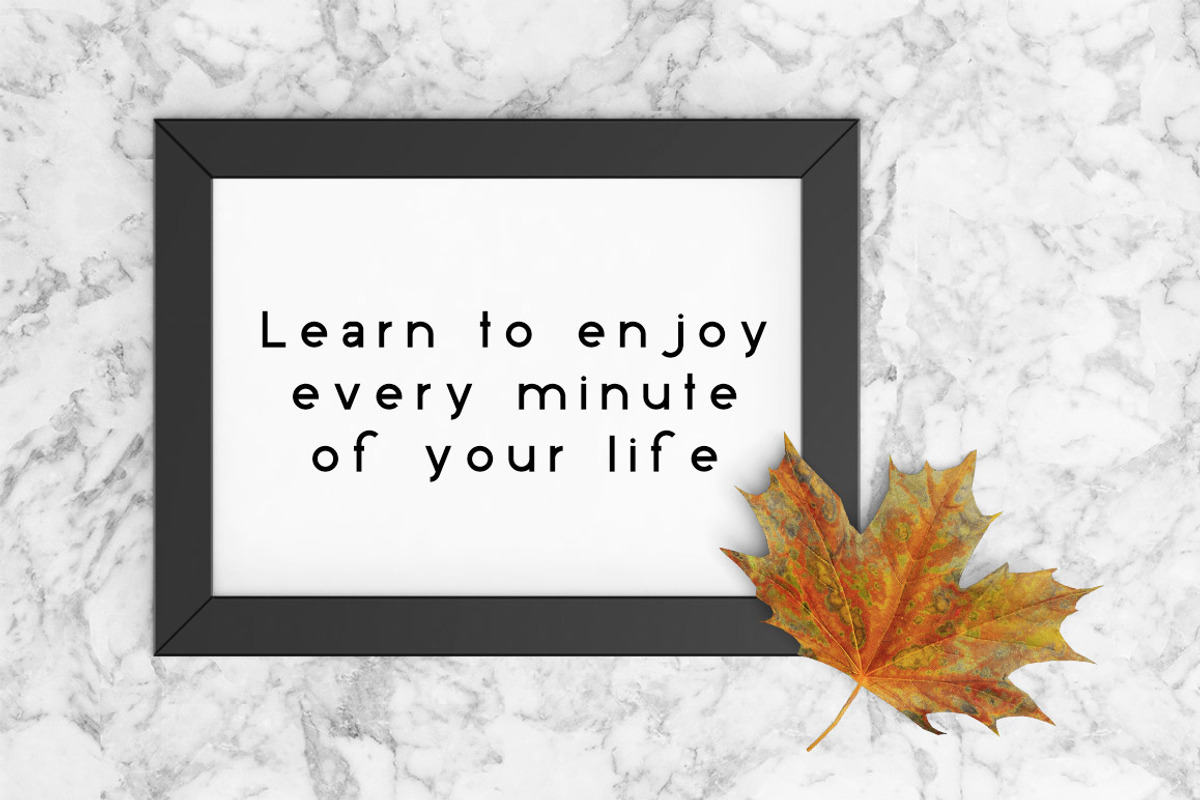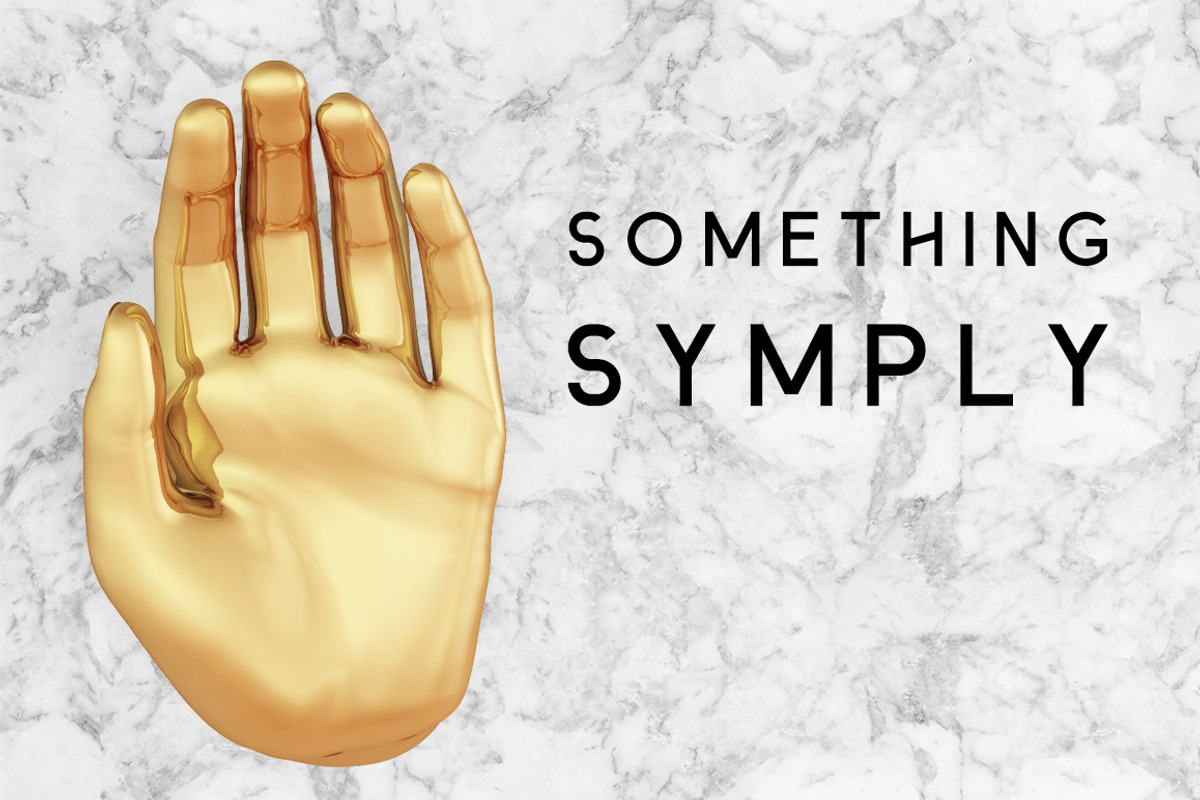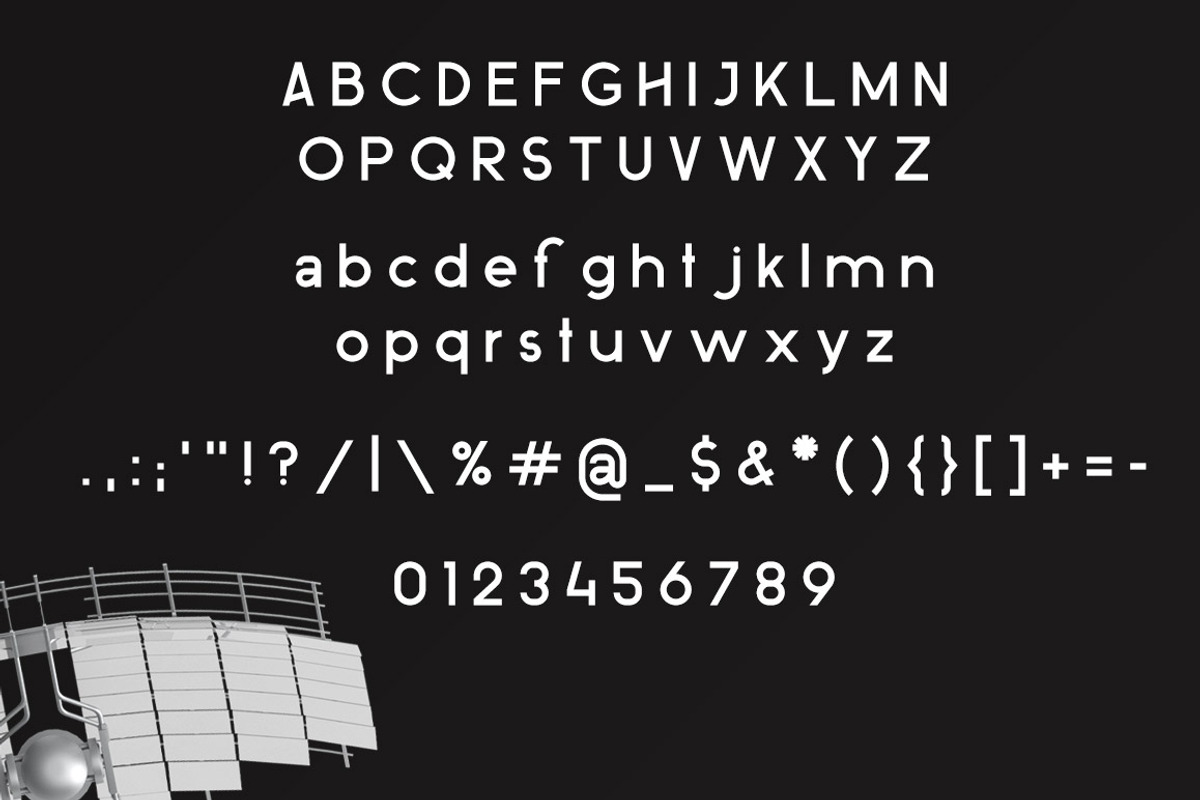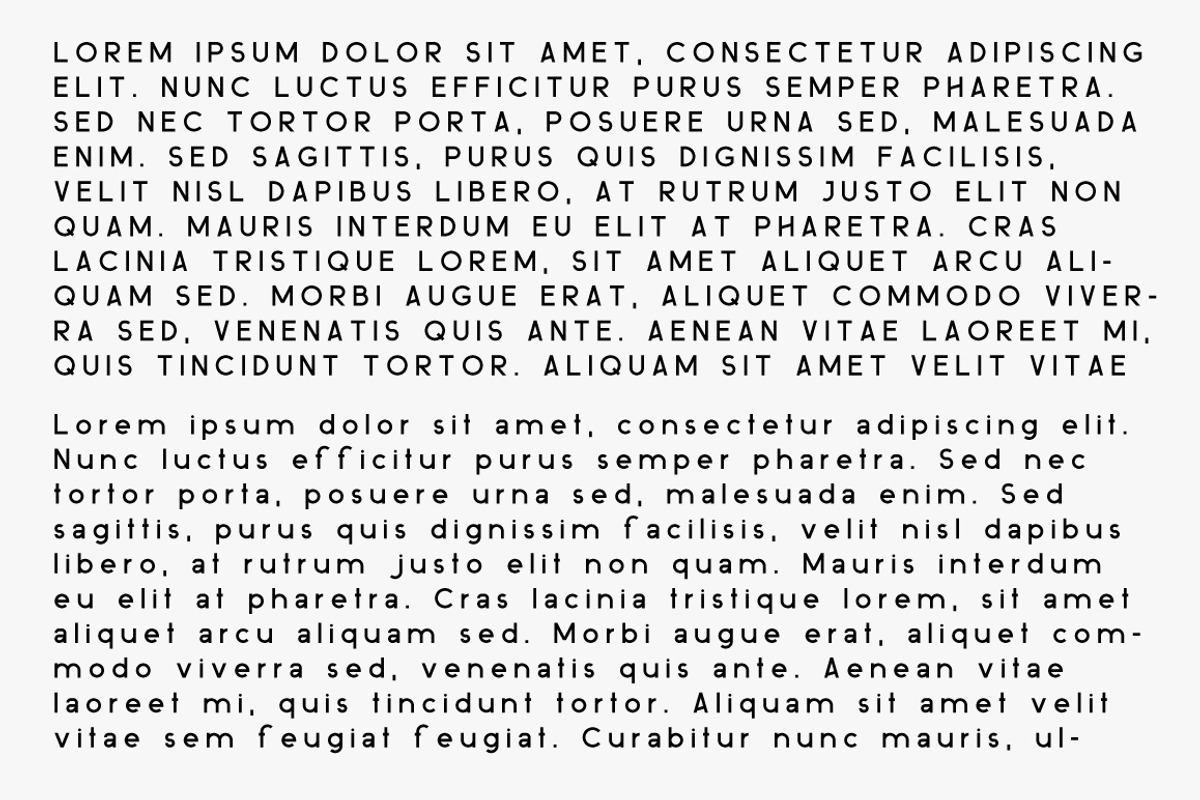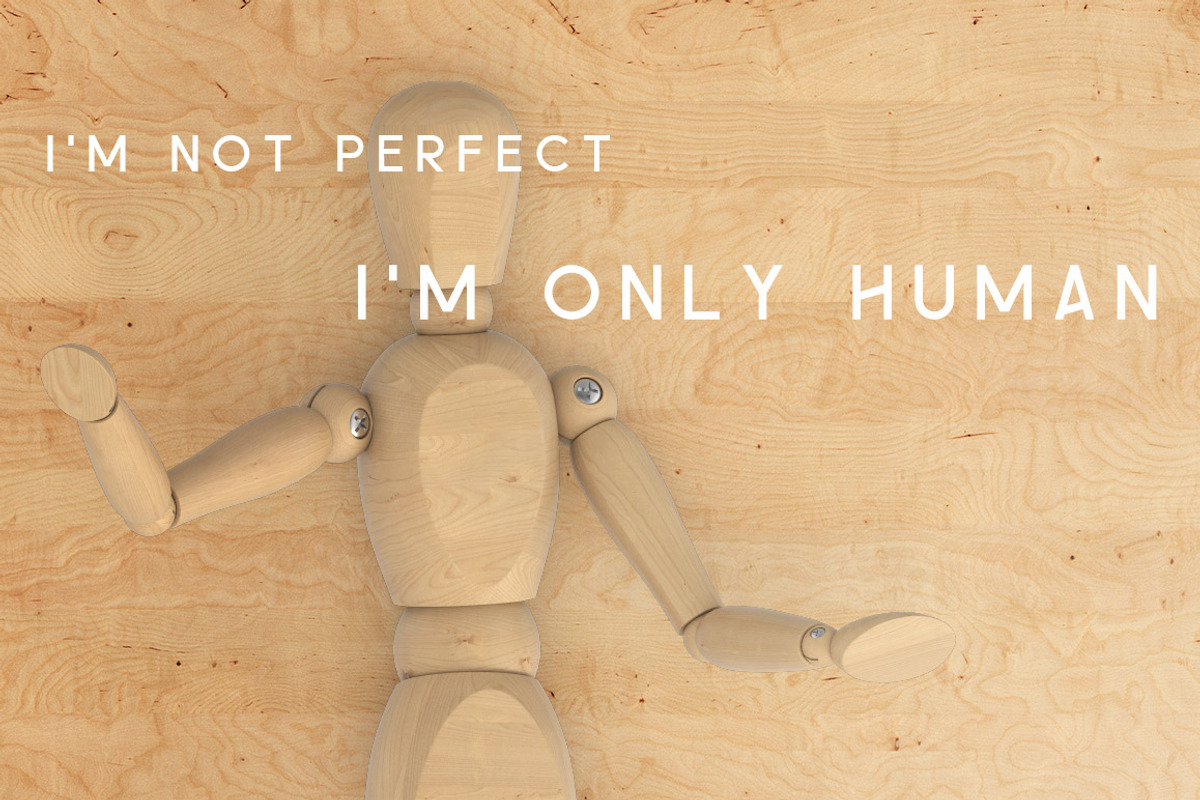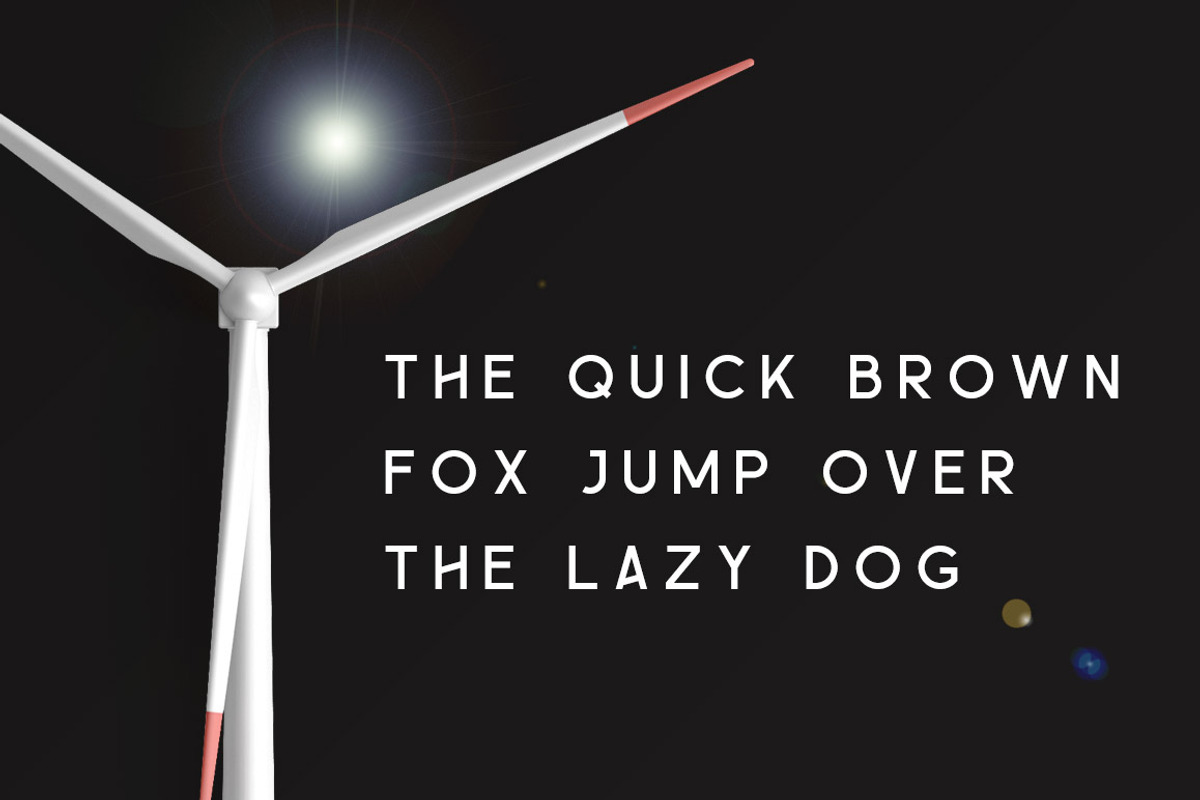
ovine Monospace Sans Serif Typeface
Ovine is a sans serif typeface with butt cap give off a relax, sweet and clean. Its design based on circle and line geometric shape with space between each letter which can be use as a minimal style header display or can be easily read as a text content.
Ovine come in standard English characters(A-Z, a-z) with 3 ligatures, numbers(0-9) and 27 Symbol&Punctuations